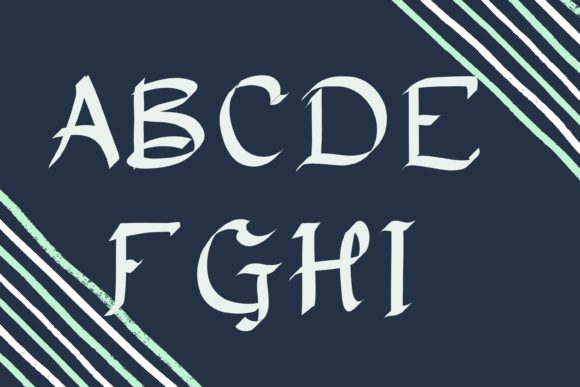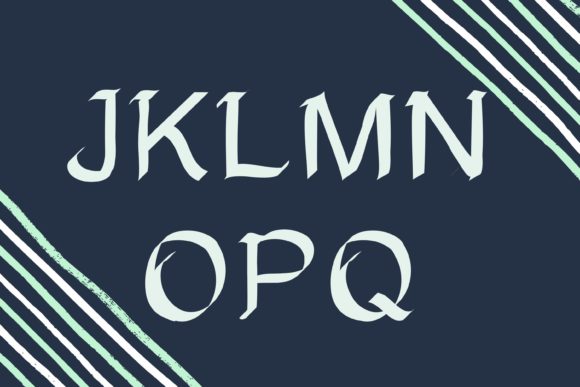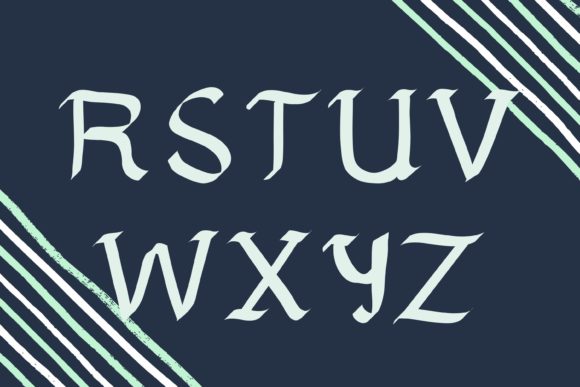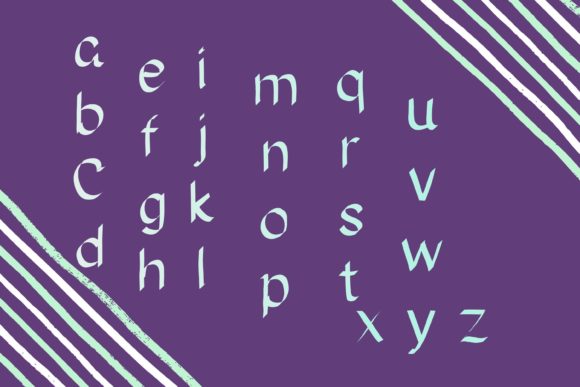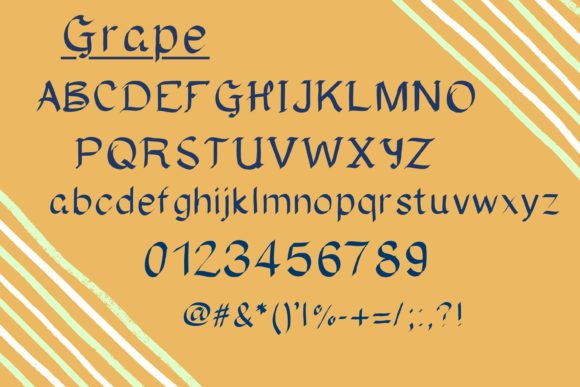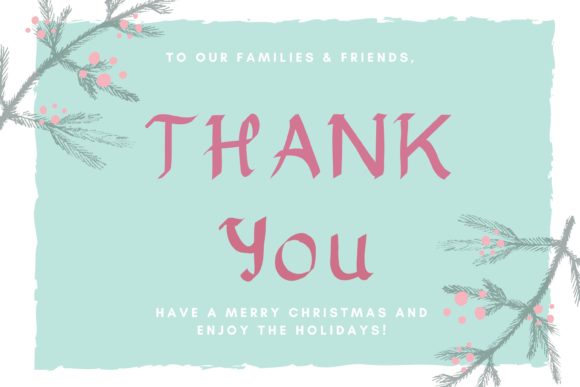
Introducing Grape Font: The Perfect Serif Choice for Your Design Needs
In the world of typography, a good font can make all the difference in the success of a design project. Whether you’re a seasoned designer or a crafty DIY enthusiast, finding the right font can be a daunting task. That’s why we’re excited to introduce you to Grape Font, a genial and well-styled serif font that’s perfect for a wide range of design applications.
What Makes Grape Font Special?
Grape Font is a beautifully designed serif font that boasts a perfect weight and design. Its friendly and authentic look makes it an excellent choice for headlines, displays, and any other design element where you want to make a statement. The font’s classic serif style gives it a timeless look that’s both elegant and sophisticated, while its clean lines and simple shapes ensure that it’s easy to read and understand.
Key Features of Grape Font
- Perfect weight and design: Grape Font has a well-balanced design that’s neither too heavy nor too light, making it perfect for a wide range of design applications.
- Friend and authentic look: The font’s friendly and authentic look makes it an excellent choice for designs where you want to create a warm and inviting atmosphere.
- Easy to read: Grape Font’s clean lines and simple shapes ensure that it’s easy to read, even at small sizes.
- Versatile: Whether you’re designing a logo, brochure, or website, Grape Font is a versatile choice that will work perfectly for headlines, displays, and body text.
Why Choose Grape Font?
There are many fonts to choose from, but Grape Font stands out from the crowd for several reasons. Firstly, its unique design makes it a great choice for designers who want to create something truly original. Secondly, its friendly and authentic look makes it perfect for designs where you want to create a warm and inviting atmosphere. Finally, its ease of use and versatility make it an excellent choice for designers of all skill levels.
How to Use Grape Font in Your Designs
Grape Font is a versatile font that can be used in a wide range of design applications. Here are a few ideas to get you started:
- Headlines and displays: Use Grape Font to create eye-catching headlines and displays that grab attention and draw the reader in.
- Logos and branding: Grape Font’s unique design makes it a great choice for logos and branding, where you want to create a memorable and distinctive identity.
- Brochures and flyers: Use Grape Font to add a touch of elegance and sophistication to your brochures and flyers.
- Websites and blogs: Grape Font is a great choice for websites and blogs, where you want to create a warm and inviting atmosphere.
Tips and Tricks for Getting the Most Out of Grape Font
Here are a few tips and tricks to help you get the most out of Grape Font:
- Experiment with different sizes: Grape Font looks great at a wide range of sizes, from small body text to large headlines.
- Play with color: Grape Font looks great in a wide range of colors, from bold and bright to subtle and muted.
- Combine with other fonts: Grape Font pairs well with a wide range of other fonts, so don’t be afraid to experiment with different combinations.
| Font Name | Grape Font |
| Author | PJ Fonttein |
In conclusion, Grape Font is a genial and well-styled serif font that’s perfect for a wide range of design applications. Its friendly and authentic look, perfect weight and design, and ease of use make it an excellent choice for designers of all skill levels. Whether you’re designing a logo, brochure, or website, Grape Font is a versatile choice that will help you create something truly special.